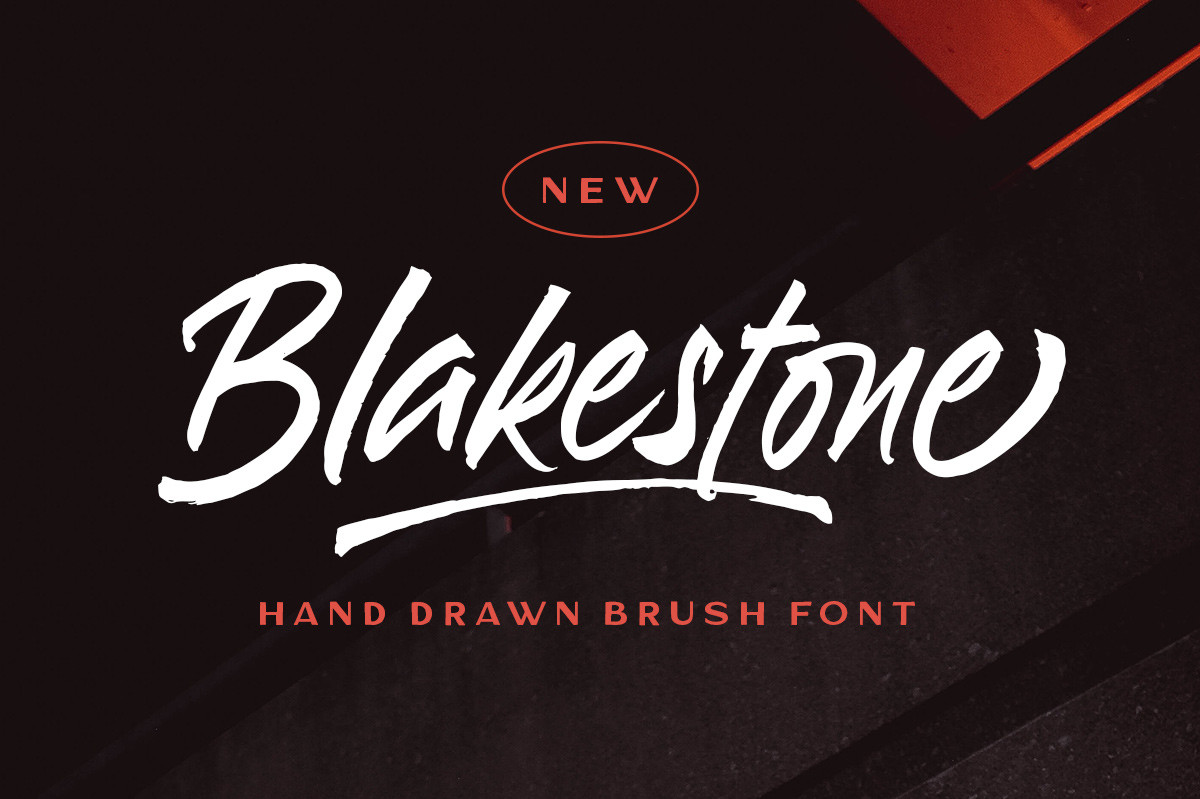
Blakestone - Hand Drawn Brush Font
Blakestone - Hand Drawn Brush Font is widely used in artistic poster designs, indie music album covers, creative agency branding, street art inspired graphics, handcrafted product packaging, boutique coffee shop signage, urban fashion labels, and authentic brand storytelling projects.
Blakestone - Hand Drawn Brush Font is an exciting typeface that captures the raw energy and spontaneous creativity of street art culture with its bold brush strokes and authentic hand-drawn character. This font brings urban sophistication and artistic rebellion to design projects, making it perfect for brands that want to convey authenticity, creativity, and edgy personality in their visual communication.
The Blakestone - Hand Drawn Brush Font family includes Regular, Bold, Light, Rough, Clean, Condensed, Extended, and Distressed variants. This diverse collection provides designers with multiple artistic expressions to match different creative visions and project atmospheres.
Blakestone - Hand Drawn Brush Font Free Download delivers exceptional artistic authenticity for designers seeking to add genuine handcrafted appeal to their typography arsenal. The font's organic brush textures and natural irregularities create an immediate sense of human touch and creative spontaneity. This typeface excels in projects where emotional connection and artistic expression are more important than traditional typographic perfection.
The distinctive character of Blakestone - Hand Drawn Brush Font showcases the beautiful imperfections that make handcrafted design so compelling. Each letter maintains unique brush stroke variations and natural texture that cannot be replicated by digital manipulation. The font's dynamic energy and artistic flow create visual movement that captures attention and conveys passionate creativity.
Creative professionals and independent brands choose Blakestone - Hand Drawn Brush Font for its ability to stand out in crowded marketplaces with authentic personality. The typeface works brilliantly in craft brewery branding, artisan marketplace communications, creative workshop materials, and lifestyle brand campaigns. Its rebellious spirit appeals to audiences who value originality and artistic expression over corporate conformity.
The artistic excellence of Blakestone - Hand Drawn Brush Font includes contextual alternates and ligatures that enhance the natural flow of brush lettering while maintaining the spontaneous energy of hand-drawn typography. These features ensure that text appears genuinely handcrafted while meeting professional design standards for commercial applications.